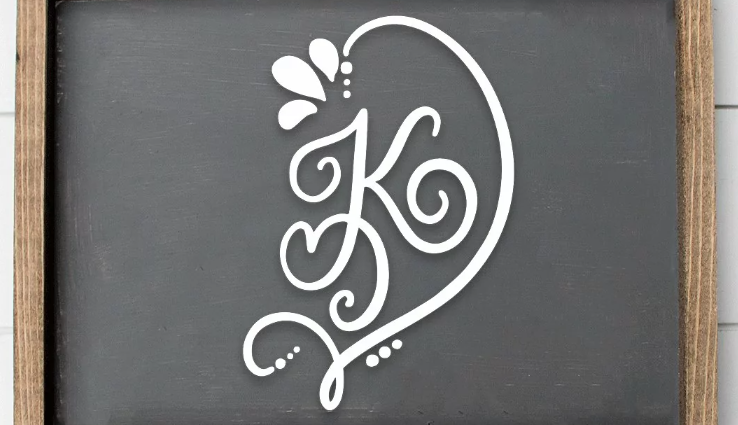
Monogram fonts are one of those design elements that never really go out of style. They’re simple, personal, and surprisingly versatile depending on the look you’re going for.
What I love most is the range. Some monogram fonts lean elegant and classic, with delicate serifs and flowing lines that feel right at home on wedding invitations or heirloom-style pieces. Others have more of a farmhouse feel — a little more relaxed, slightly rustic, and perfect for everyday items like kitchen towels or entryway signs.
Then there are split letter monograms, which are always fun to work with. They give you that bold initial shape with space to tuck a name or word inside, making them ideal for personalized gifts. And of course, there are seasonal options too — holiday-themed monogram fonts that add a festive touch without needing a full design overhaul.
There are also plenty of truly unique styles out there. Some are playful, some are structured, and some don’t fit neatly into any category at all. That variety makes it easy to find something that fits your exact project, whether you want something subtle or something that stands out.
As for how to use them, the options are pretty wide. Monogram fonts work well on tote bags, baby items, and clothing, but also on home décor like wood signs, pillows, and wall art. They’re great for wedding details, from invitations to favors, and they make thoughtful, personalized gifts for just about any occasion.
If you like designs that feel both personal and polished, monogram fonts are an easy go-to. They’re adaptable, timeless, and always add a little extra meaning to whatever you’re creating.
Now for some great Monogram Fonts!